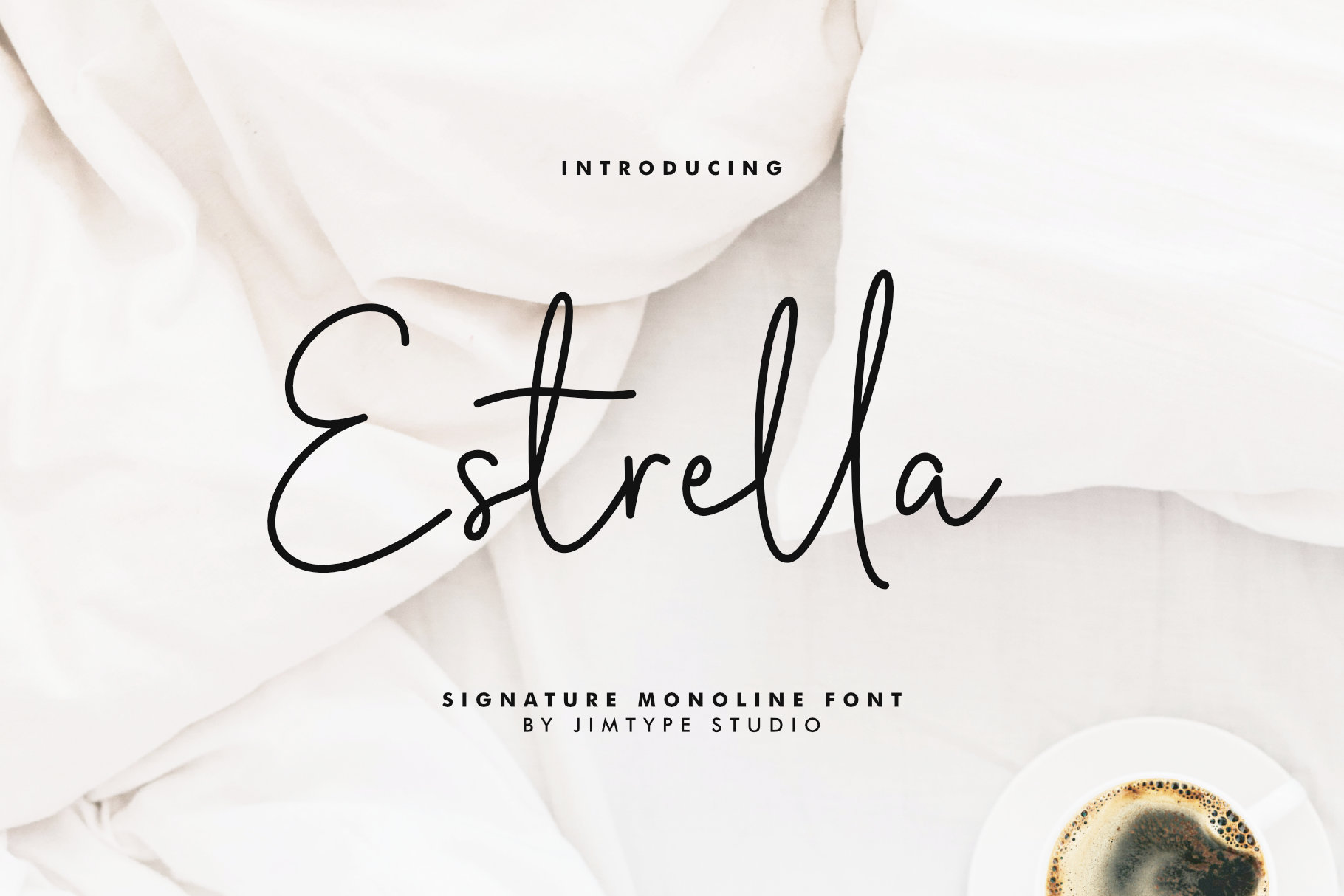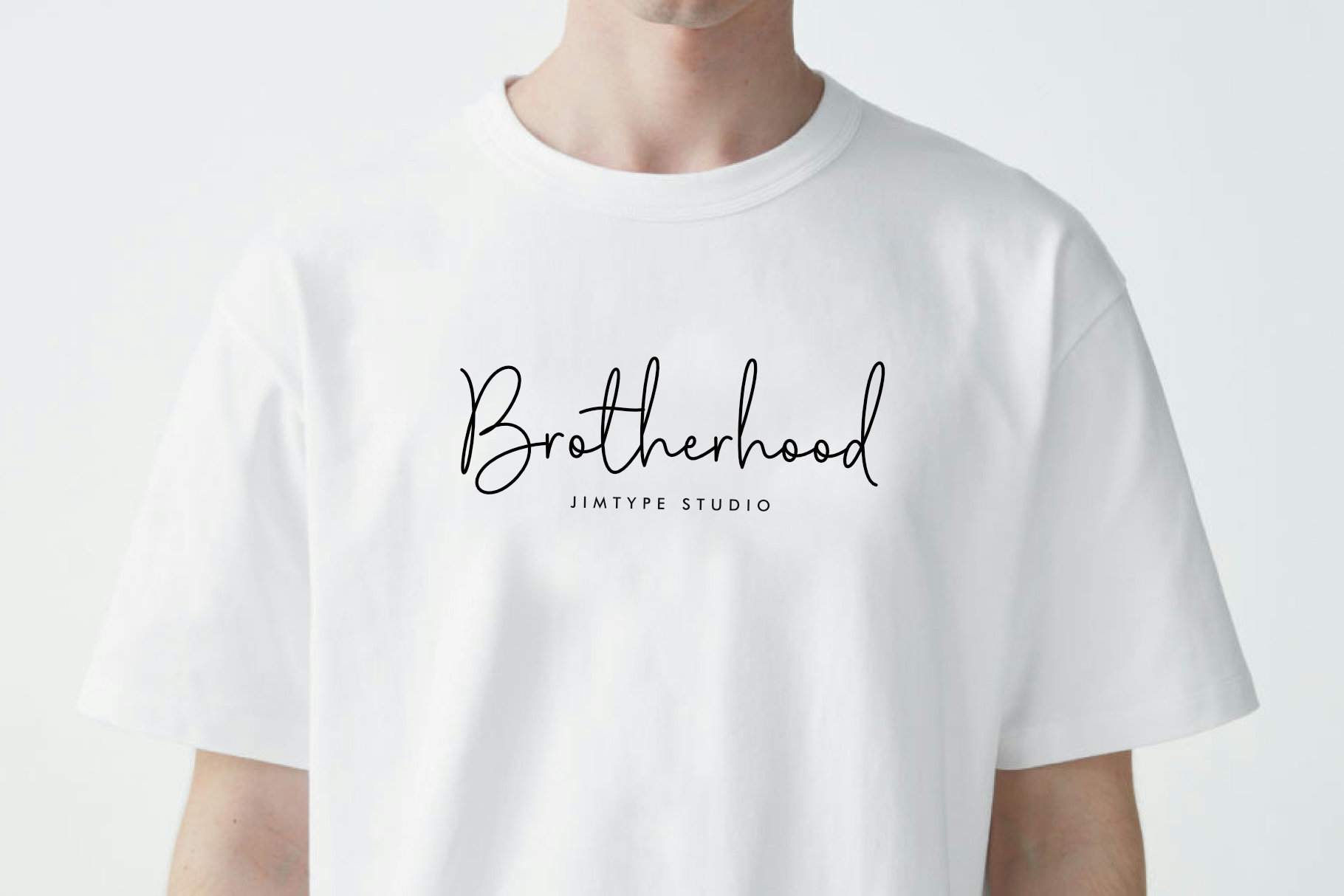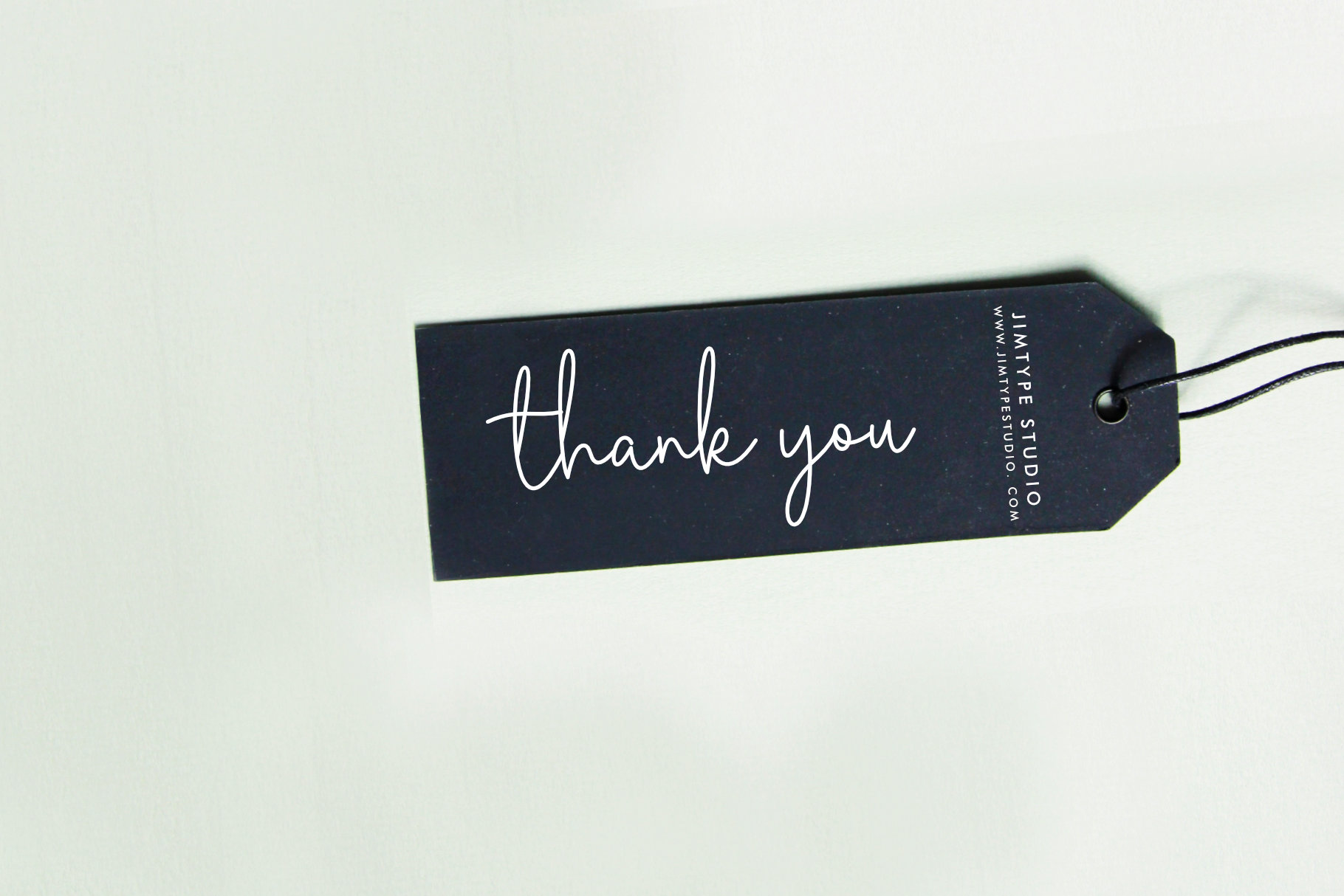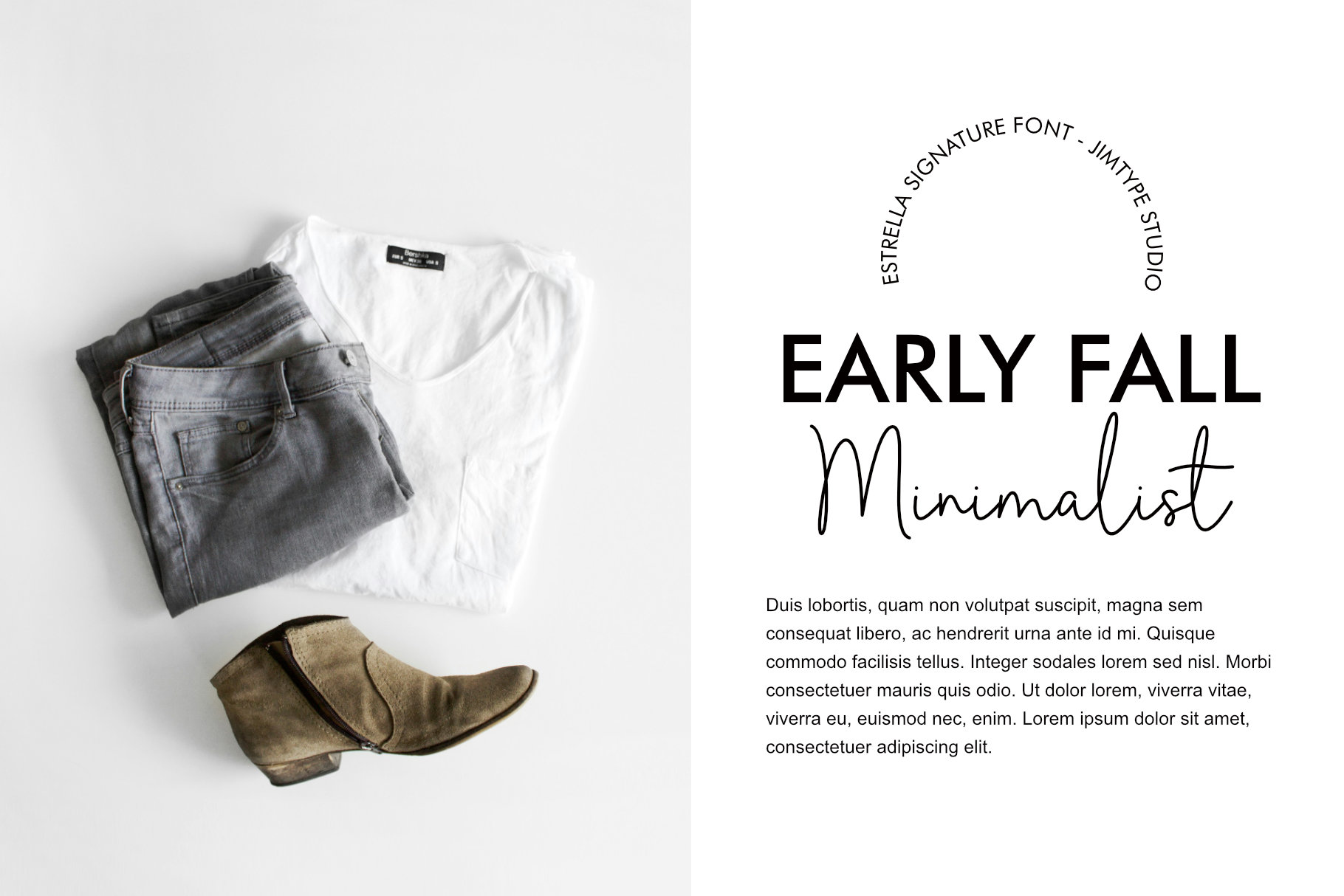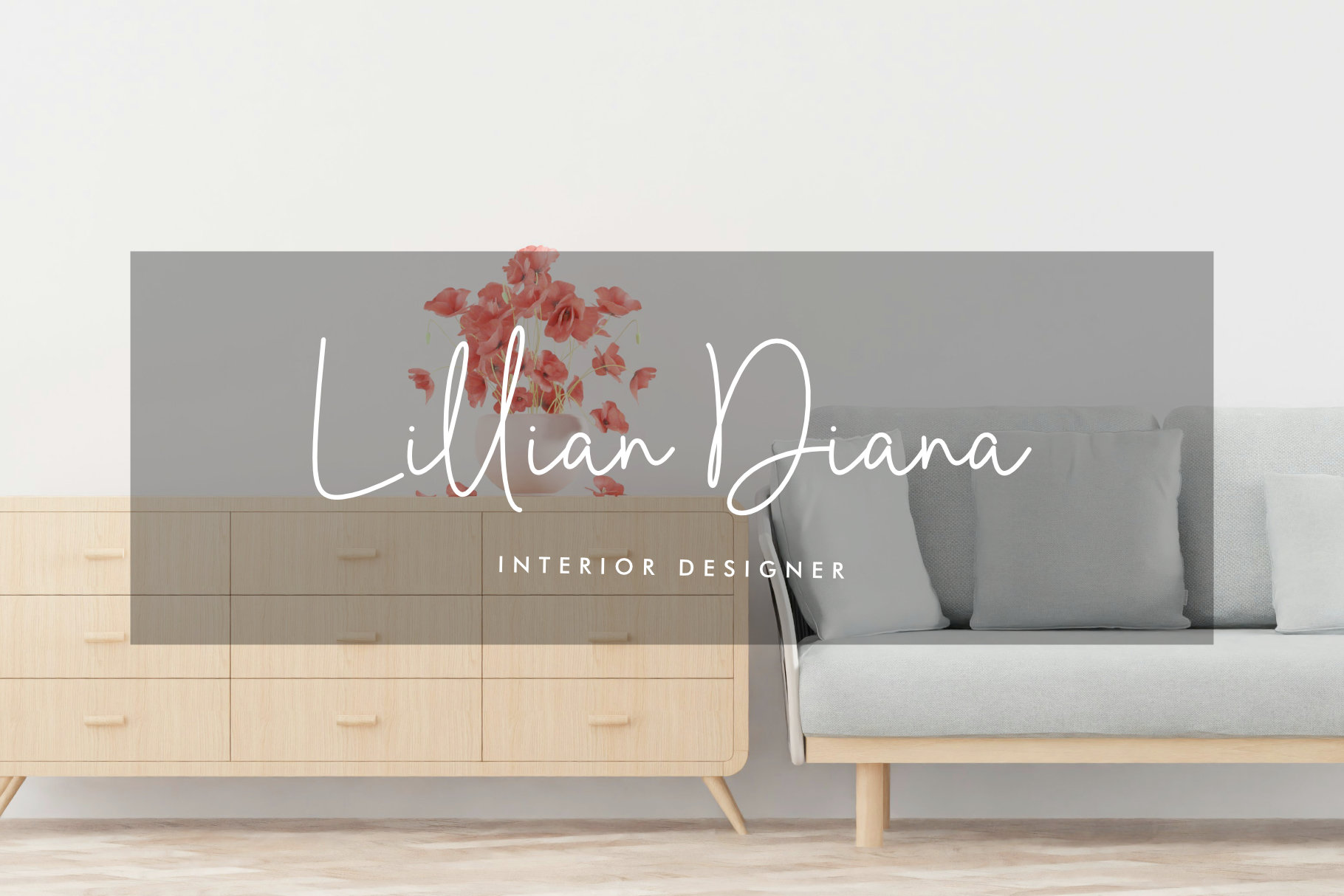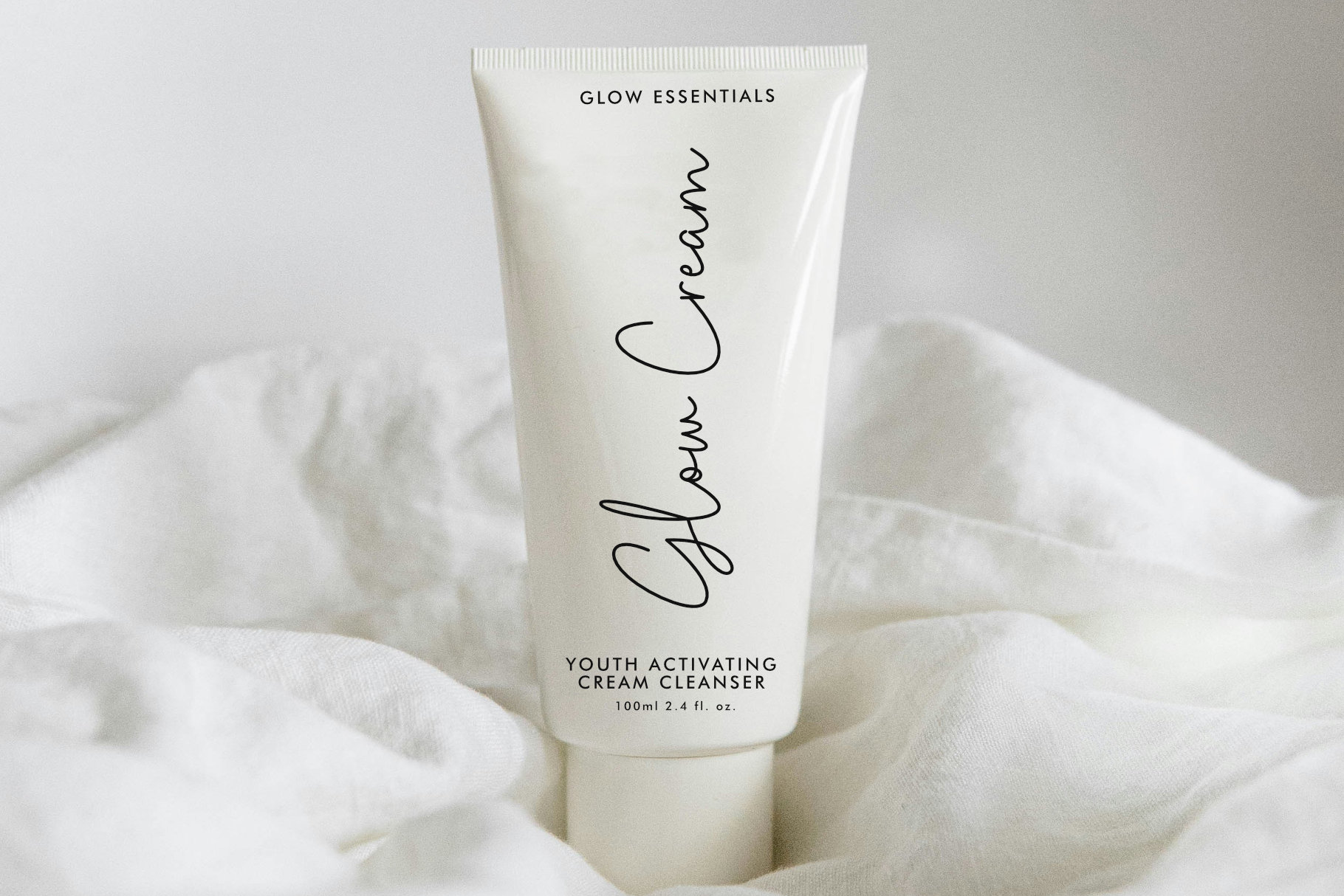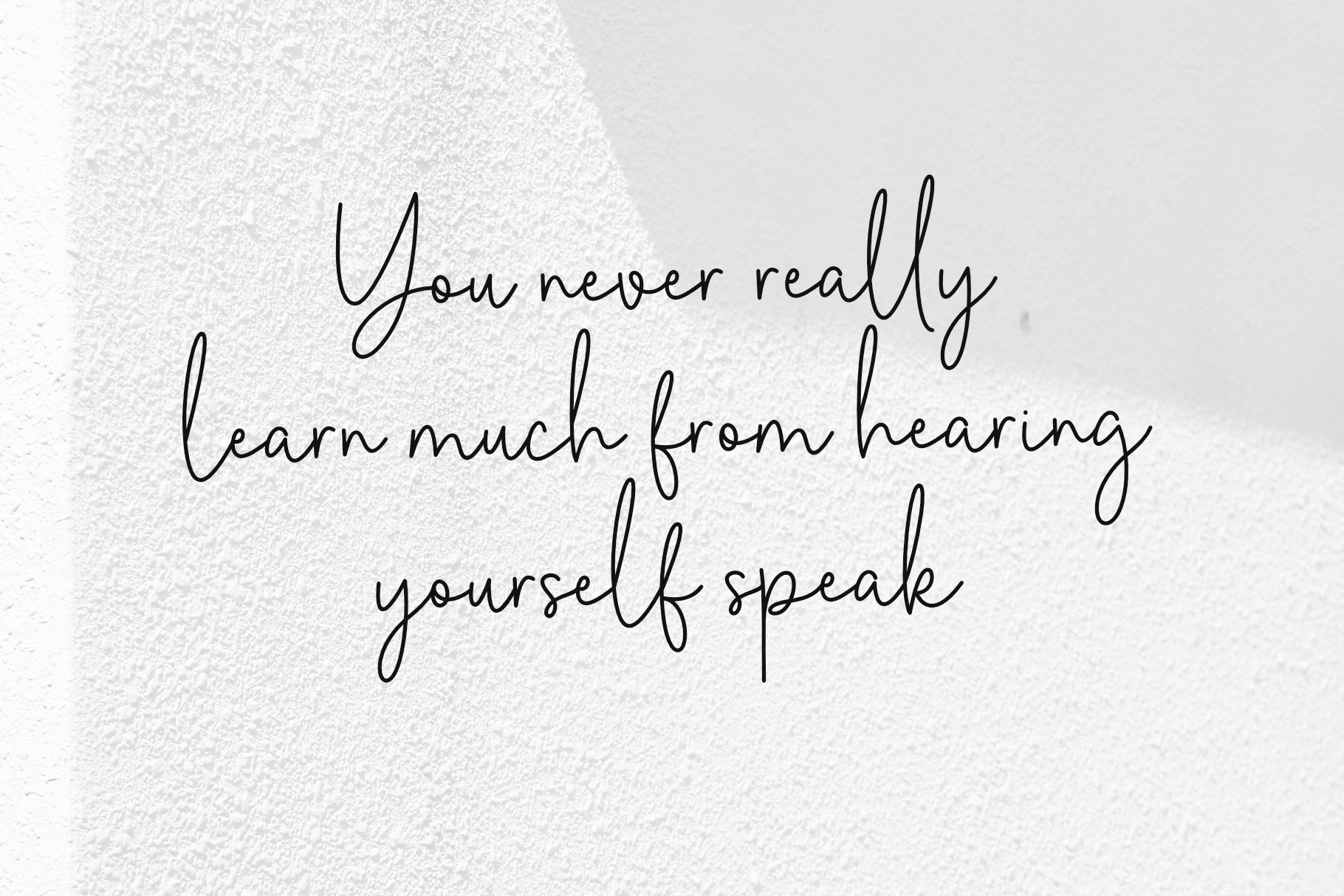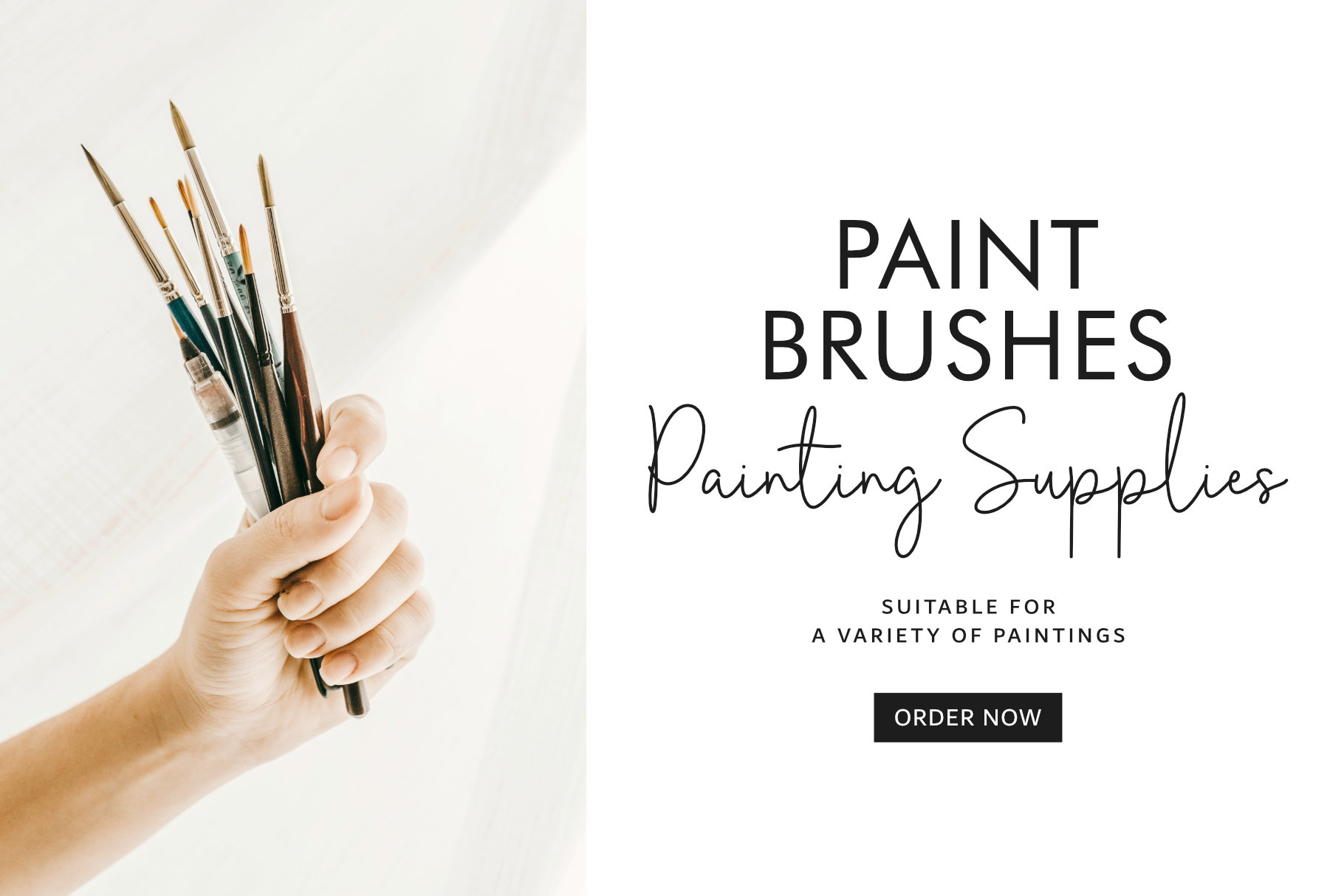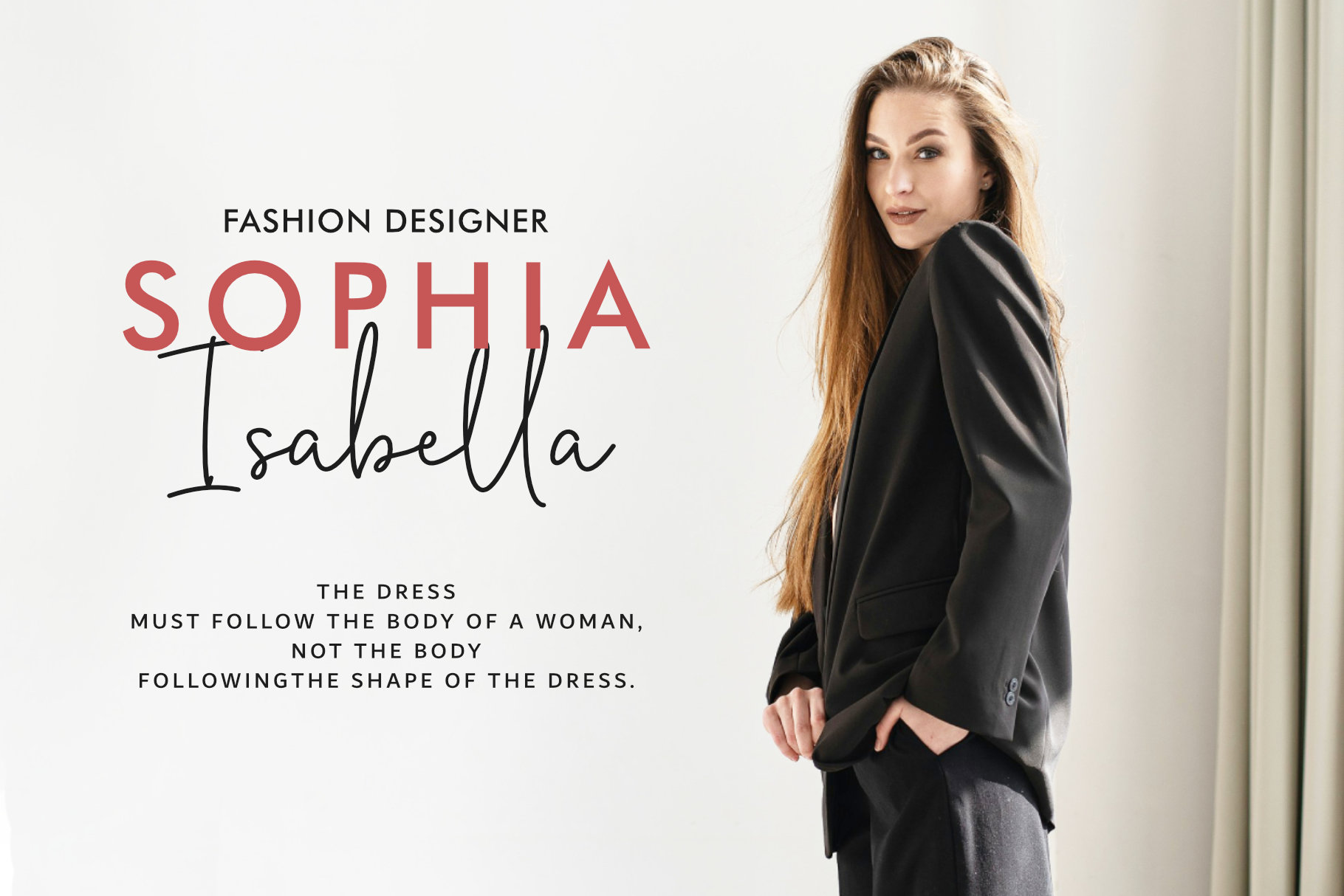
Estrella – Signature Minimalist Font
Meet Estrella, a minimalist and stylish signature font perfect for adding elegance to your projects. Ideal for branding, labels, photography, invitations, stationery, wedding designs, social media posts, advertising, product packaging, and more. Elevate your designs with the sleek sophistication of Estrella!